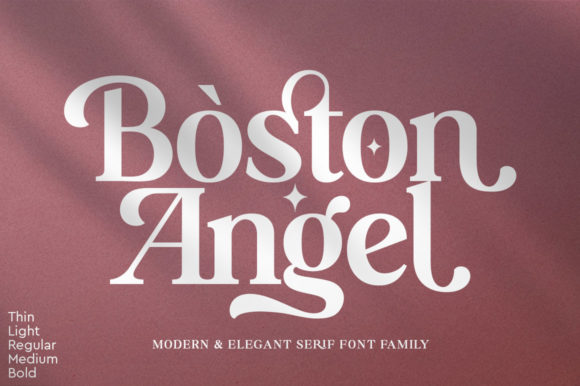
Welcome to the realm of typography, where artistry meets functionality. Prepare to be captivated by Boston Angel, a display font that stands as a testament to meticulous craftsmanship. This remarkable creation by Great Studio is not just a font; it's an artistic journey that will redefine your design horizons. Boston Angel is not merely a font; it's an experience that will transform your creative visions into breathtaking realities.
Dive into the depths of creativity with Boston Angel, a font that awakens the senses and captivates the imagination. Its graceful curves, delicate strokes, and elegant serifs dance together in perfect harmony, creating a visual symphony that commands attention. Each letterform is a masterpiece, meticulously crafted to convey a sense of sophistication and charm that will leave an indelible mark on your designs.
With Boston Angel as your creative companion, you'll effortlessly craft designs that exude professionalism and elegance. Whether you're creating logos, brochures, posters, or any other marketing material, this font will elevate your work to new heights. Its versatility knows no bounds, adapting seamlessly to a wide range of design styles, from classic and timeless to modern and trendy.
Unlock the boundless possibilities of Boston Angel and embark on a creative adventure that will leave you breathless. Its beauty transcends the ordinary, transforming even the simplest of designs into captivating works of art. Let your imagination soar as you explore the endless creative possibilities that await you with this remarkable font.